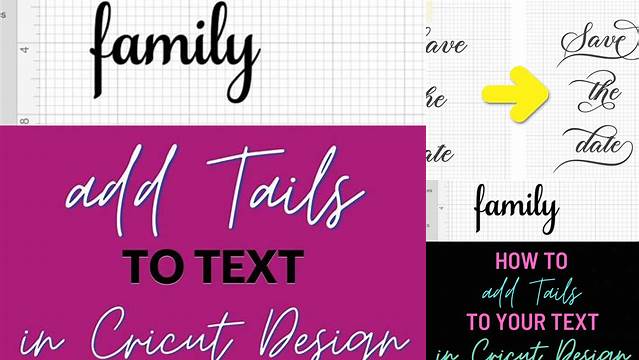
Add Tails To Fonts In Cricut: A Simple Guide
Hey guys! Ever looked at those gorgeous fonts with elegant tails and swirls and thought, "Man, I wish I could do that in Cricut!" Well, you're in the right place! Adding tails to fonts in Cricut can seriously elevate your designs, making them look professional and oh-so-stylish. It might seem a bit tricky at first, but trust me, with a little know-how, you'll be creating stunning custom fonts in no time. This guide is all about breaking down the process, so you can easily add those eye-catching tails to your favorite fonts and take your Cricut projects to the next level. So, let's dive in and learn how to add tails to fonts in Cricut!
H2: Understanding Font Tails and Their Impact
Alright, first things first, let's talk about what font tails actually are and why they're so darn appealing. Font tails, also known as swashes or flourishes, are those decorative extensions that gracefully trail off from the letters, adding a touch of elegance, personality, or even a bit of whimsy to your text. Think of them as the stylish accessories that complete an outfit! They're especially popular in calligraphy fonts, script fonts, and other decorative typefaces, where they can really make a statement.
But why are font tails so impactful? Well, they can completely transform the look and feel of your design. They can make a project look more:
- Elegant: Adding a touch of sophistication.
- Romantic: Creating a dreamy aesthetic.
- Playful: Injecting a sense of fun.
- Unique: Setting your design apart from the crowd.
Moreover, font tails can improve the overall flow and readability of your text, particularly in script fonts, where they can help connect letters and make the words look like they're flowing seamlessly. Understanding the impact of font tails is the first step to effectively incorporating them into your designs. Choosing the right font with elegant tails can really help set your project up for success, and Cricut makes it easy to do just that!
H2: Choosing the Right Fonts for Adding Tails
Now that we've established why you'd want font tails, the next critical step is picking the right fonts. Not all fonts are created equal when it comes to adding tails. Some fonts are designed specifically with tails and flourishes in mind, while others may not lend themselves well to this effect. Therefore, selecting the appropriate font is essential for a successful outcome.
- Script Fonts: These are your go-to fonts for tails. They're specifically designed to have flowing connections and often feature elegant swashes and flourishes that naturally extend from the letters. Popular script fonts include Cursive, Brush Script, and Samantha Font. These fonts are almost always great choices for adding tails and creating a polished and professional look.
- Calligraphy Fonts: Similar to script fonts, calligraphy fonts often have beautiful tails and are perfect for creating a personalized touch. Look for fonts that have delicate strokes and graceful endings.
- Decorative Fonts: Some decorative fonts also incorporate tails or flourishes, but it's important to preview the font and see how the tails interact with other letters before committing. Try typing a few words with the font, like a name or a short phrase, to see how the tails look when they connect. This will give you a better understanding of whether they suit your design.
When choosing your fonts, consider the overall style of your project. Is it meant to be elegant, whimsical, or modern? The font should reflect the theme, and the font tails should enhance this style. Remember to keep it simple, and don't overwhelm the design.
H2: Accessing and Installing Fonts with Tails
Alright, so you've got your eyes on a font with gorgeous tails? Awesome! The next step is accessing and installing the font so you can use it in Cricut Design Space. Fortunately, this process is usually straightforward, but it does have a few steps. Here's how to get the ball rolling:
- Font Sources: You can find a wide variety of fonts with tails from various sources. Some of the most popular sources include:
- Font Bundles: These are websites that offer bundles of fonts, often including fonts with tails.
- Creative Market: This is a great place to find a wide variety of fonts, including fonts with tails.
- Etsy: This platform offers a vast selection of fonts, and many sellers specialize in script and calligraphy fonts with tails.
- DaFont: DaFont is a free font website.
- Google Fonts: Offers a lot of free fonts, but they don't always include font tails, so use them with a little more caution.